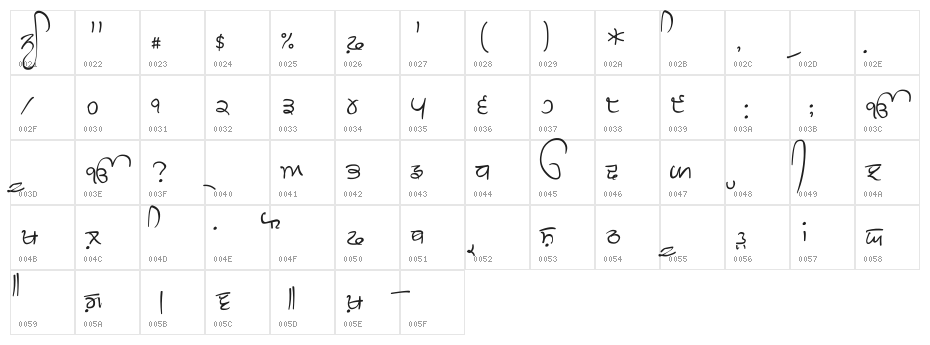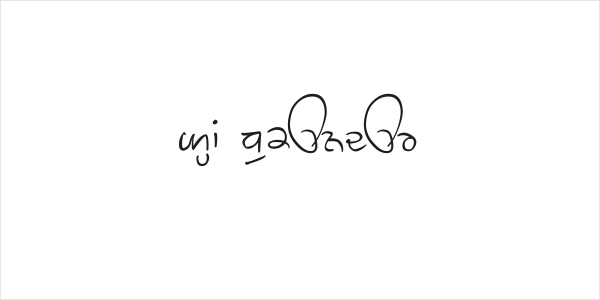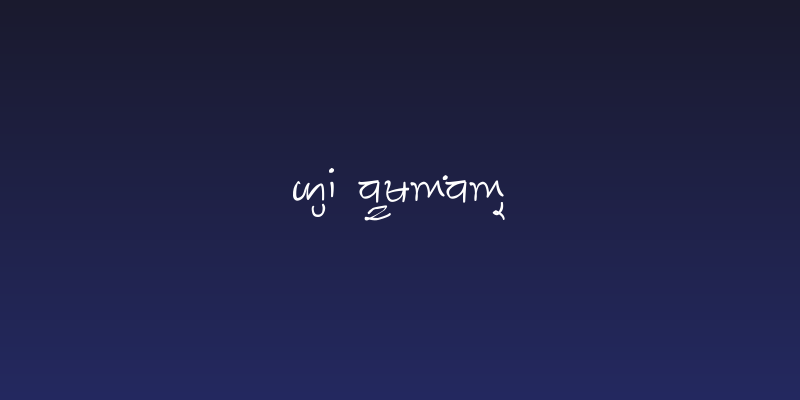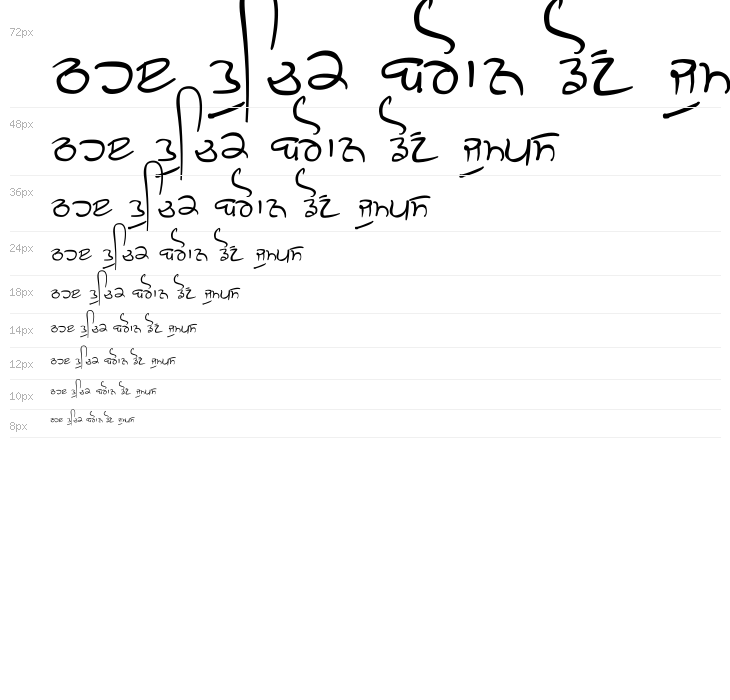
GHW Dukandar Font
GHW Dukandar Description
This script font features a flowing, handwritten style with elegant curves and loops. The characters are connected, giving it a cohesive and fluid appearance. The strokes vary in thickness, adding a dynamic and lively feel to the text. The font exudes a sense of creativity and personal touch, making it ideal for projects that require a unique and artistic flair. The special characters maintain the same fluidity, ensuring consistency across all elements. Its distinctive style makes it stand out, while still being legible and versatile.
| Proposed Projects | Ideal for wedding invitations, greeting cards, personal branding, and artistic projects. |